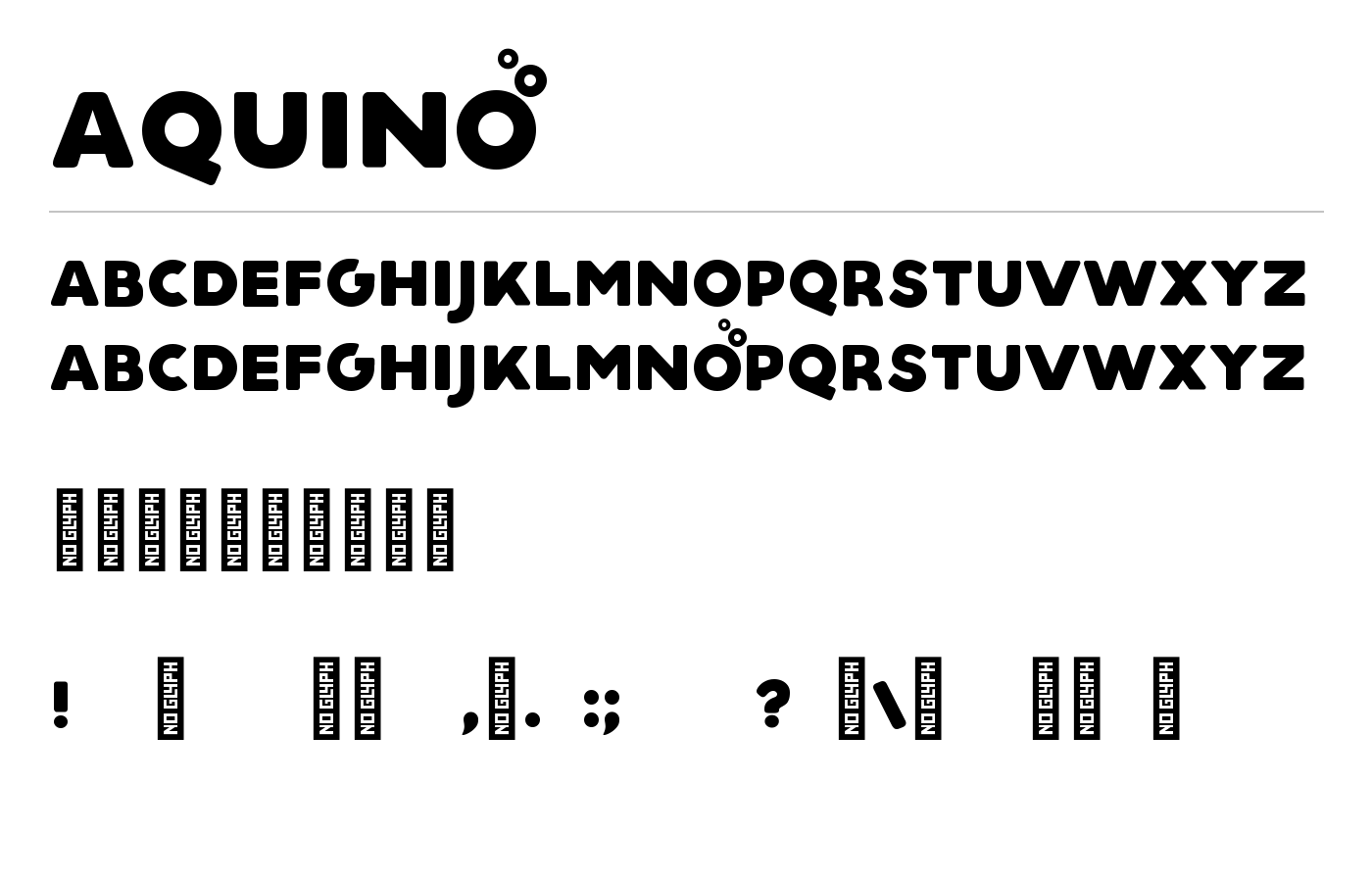
Aquino is a bold, geometric sans serif font with a playful and modern character, featuring rounded terminals and a sturdy, compact structure. Its heavy weight and clean shapes make it ideal for eye-catching headlines, logos, and branding projects that require a friendly yet confident look. This font’s distinctive style adds a fun, approachable vibe perfect for creative and contemporary designs.
Aquino Font